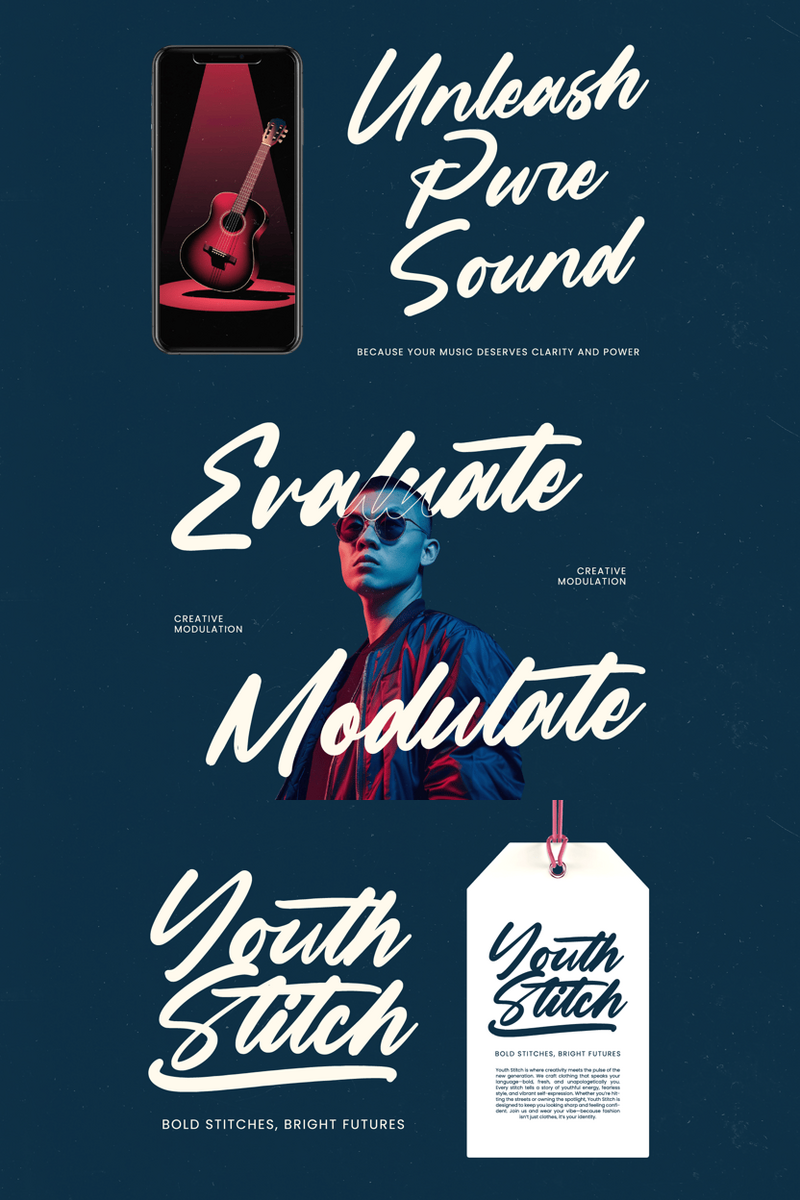
Mountain Silent: Command the Page. Your DTC Brand's Bold Editorial Surge for Product Catalogs, Digital Campaigns & Beyond.
Imagine the quiet power of a colossal peak, then unleash its thunderous presence. That's Mountain Silent. It's not just a font; it's a declaration. Each curve, every line, crafted for raw, unforgettable impact. This is the Mountain Silent font, designed to cut through the noise, a visual force engineered for the modern DTC landscape.
In the relentless world of Direct-to-Consumer startups, mere visibility isn't enough. You're building a movement, a lifestyle, a community – not just selling a product. Your brand identity needs to scream unique, dependable, and utterly captivating, instantly resonating with your audience. You need to command attention, from the first scroll on a mobile screen to the tactile experience of unboxing. But how do you capture that untamed spirit, that bold vision, in every pixel and every print?
Enter Mountain Silent, the typeface engineered for the bold. This isn't your average font; it's your brand's visual megaphone, a strategic asset in your quest for market dominance. We built Mountain Silent font to empower DTC brands to forge an unshakeable identity, immediately recognizable and deeply resonant. Its inherent bold expressiveness ensures your message isn't just seen, it's felt, creating an indelible mark in a crowded digital marketplace.
With Mountain Silent, your brand gains:
- Unrivaled Visual Impact: Cut through the digital clutter and static competitors. Whether it's a pulsating social media ad headline, a compelling landing page banner, or a limited-edition product label, Mountain Silent demands attention and holds it.
- Authentic Brand Storytelling: Each character of the Mountain Silent font exudes confidence and conviction, allowing your brand's unique narrative to unfold with undeniable power. It fosters an immediate emotional connection with your audience, building trust and loyalty at first glance.
- Strategic Versatility for DTC Branding: Don't be fooled by its robust presence – Mountain Silent font is incredibly adaptable. It performs powerfully in large display settings for maximum impact, yet maintains surprising readability for concise body text within intricate editorial layouts.
Picture Mountain Silent dominating your DTC product catalogs, making every product description pop with vibrant clarity. Envision it as the headline powerhouse for your next digital campaign, grabbing eyeballs instantly and driving conversion. See it defining your brand across impactful social media graphics, or adding an unforgettable punch to your e-commerce website design. From compelling packaging design that screams premium to striking print advertisements and brand manifestos, Mountain Silent ensures your brand's voice is always heard, loud and clear. It’s the typeface for the brand that means business.
Mountain Silent: Unleash Your Brand's Unmistakable Voice.
For DTC startups ready to define their space, to be seen, remembered, and revered, the Mountain Silent font isn't just a choice; it's a strategic advantage. It's the visual backbone for the next generation of iconic brands.